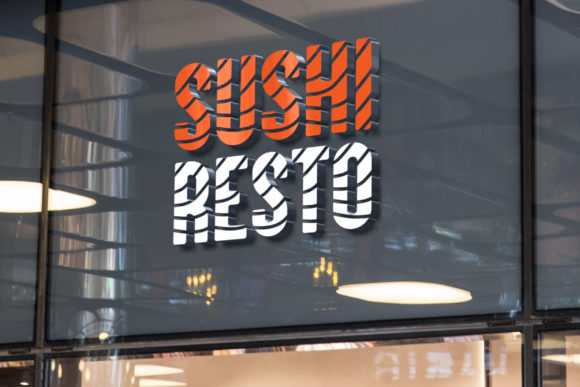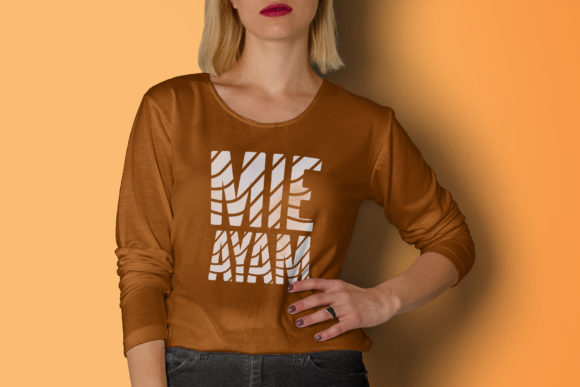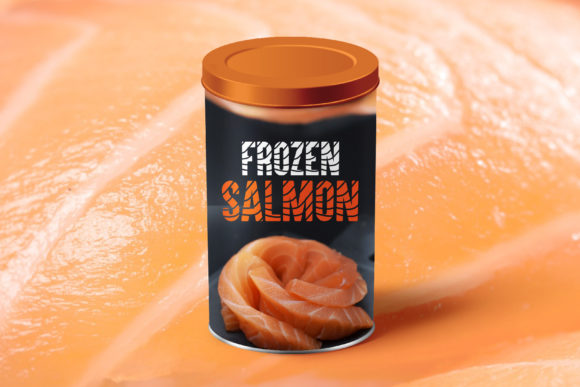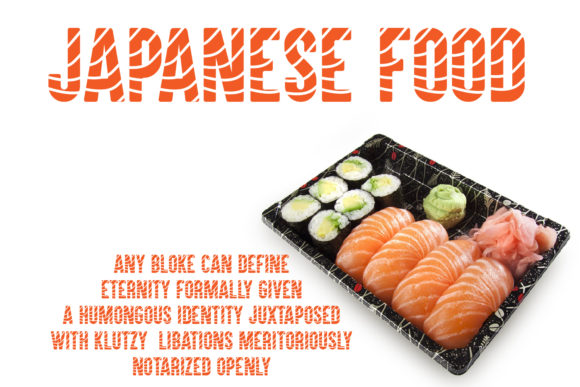
Introduction to Salmoon Font
Inspired by salmons, Salmoon is a cute and fresh display font with a unique vibe.
Use it to turn any design project into an eye catcher .
Salmoon Font offers exceptional quality and versatility, making it a valuable addition to your design toolkit. Whether you’re creating for personal projects or commercial use, Salmoon Font delivers professional results.